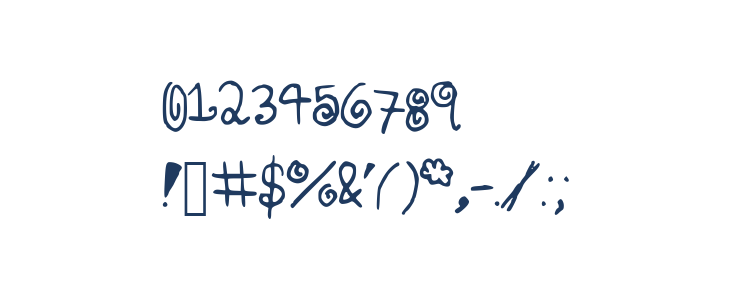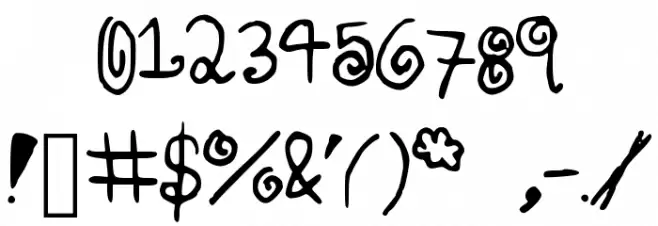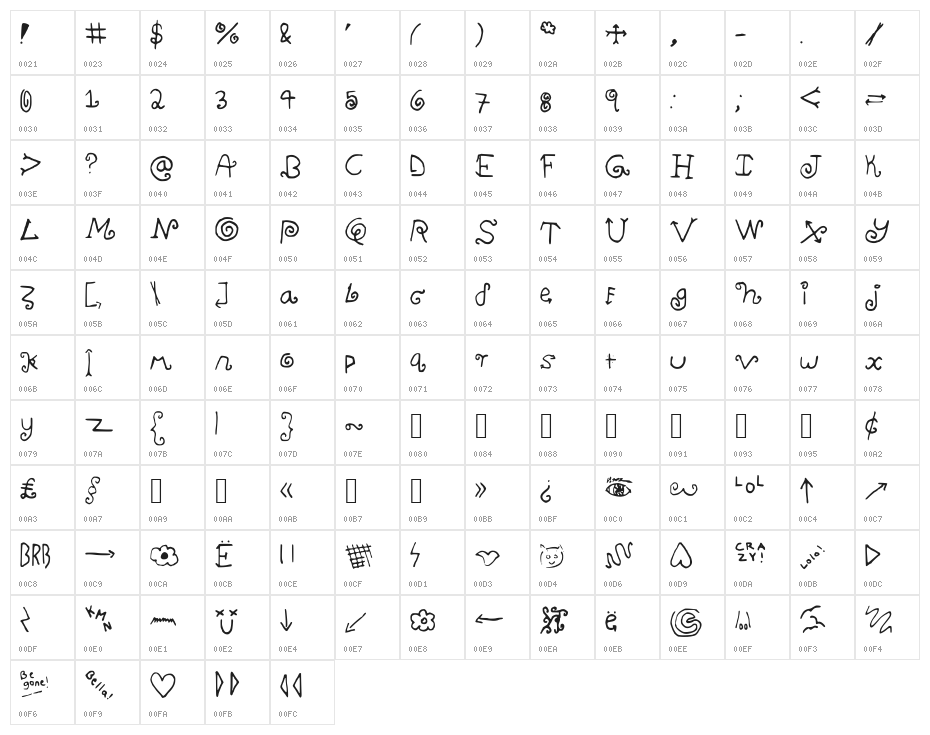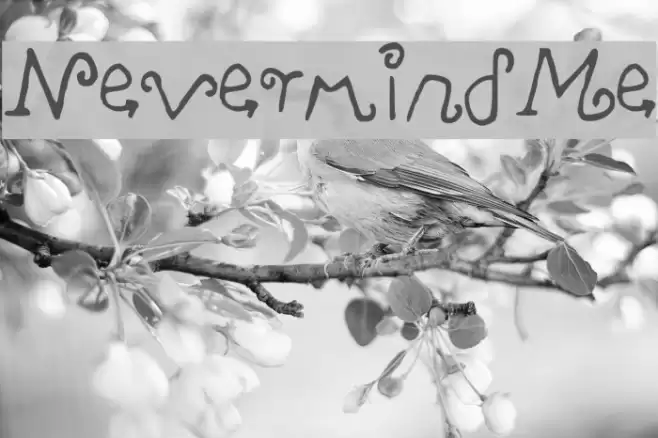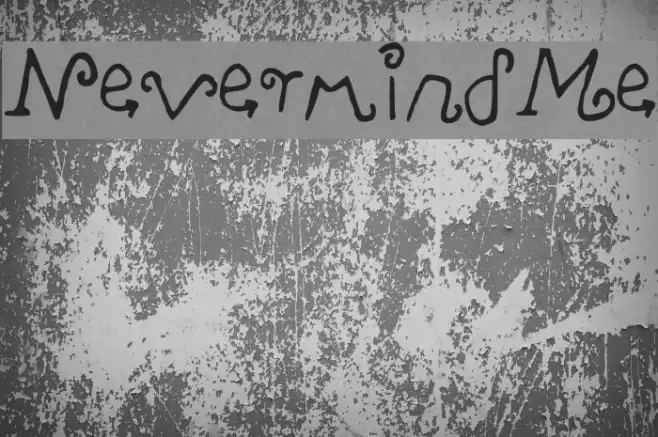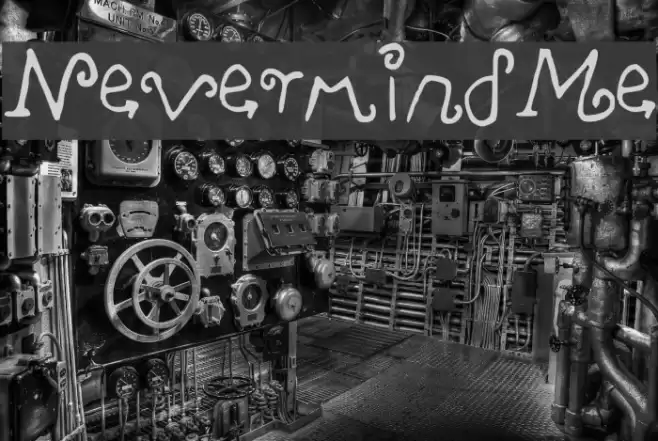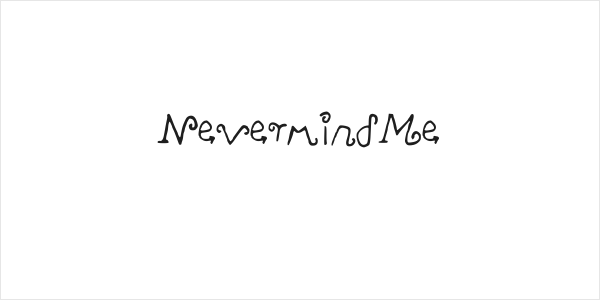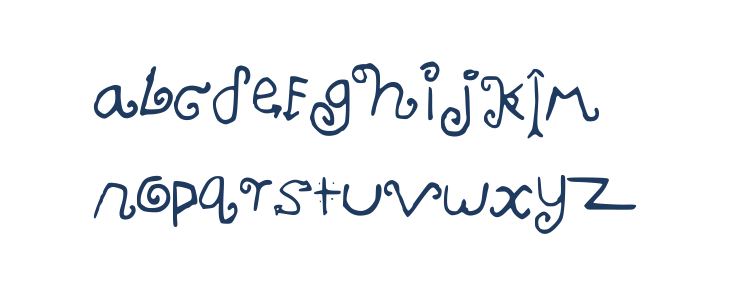
NevermindMe Font
NevermindMe Description
This font features a whimsical and playful design, characterized by its curly and swirly strokes. The letters have a hand-drawn appearance, with uneven lines and quirky embellishments that give it a unique, artistic flair. The uppercase and lowercase letters maintain a consistent style, with exaggerated curves and loops that add to its charm. Numbers and special characters follow the same playful theme, making the font suitable for creative and informal projects. Its distinct style makes it stand out, perfect for capturing attention in designs that require a touch of fun and creativity.